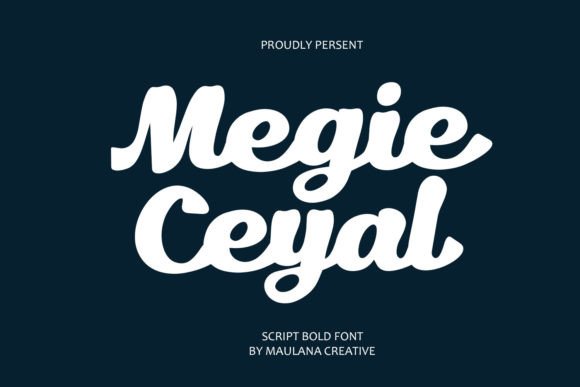
Embrace the Art of Lettering with Megie Ceyal: A Script Font that Captivates
In a world where visual aesthetics reign supreme, typography has emerged as a powerful tool to convey emotions, set the tone, and create lasting impressions. Introducing Megie Ceyal, the ultimate script font designed to add a touch of elegance and sophistication to your creative projects.
Megie Ceyal is not just a font; it's an art form. Its meticulously crafted curves and flourishes evoke a sense of timeless beauty, reminiscent of handwritten letters from a bygone era. Whether you're a seasoned designer or a budding entrepreneur, this font has the versatility to transform your ideas into captivating visuals.
Step into the realm of imagination and let Megie Ceyal guide you through a journey of limitless possibilities. Envision your logo adorned with this exquisite script, instantly capturing attention and leaving a lasting impression on your audience. Picture your social media posts adorned with Megie Ceyal, exuding an aura of sophistication that sets you apart from the crowd.
From movie titles that ignite curiosity to book covers that whisper tales untold, Megie Ceyal effortlessly elevates the ordinary into the extraordinary. Its ability to effortlessly blend with other fonts, such as signatures or scripts, makes it the perfect companion for creating harmonious and visually striking compositions.
Unleash your creativity and let Megie Ceyal work its magic. Whether you're designing logos, crafting social media posts, or creating movie or book titles, this font is your passport to a world of captivating visuals. Make a statement, leave a legacy, and let Megie Ceyal be your muse.